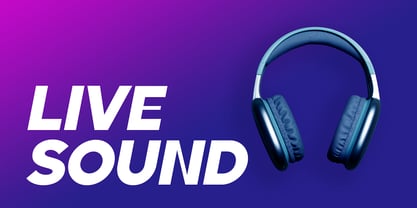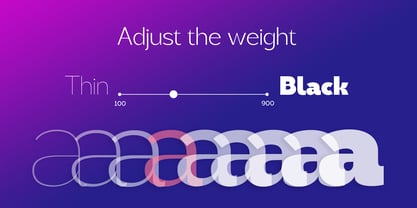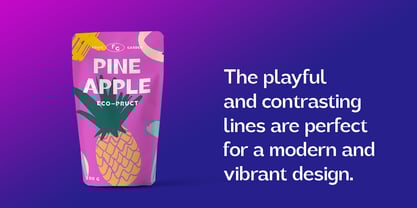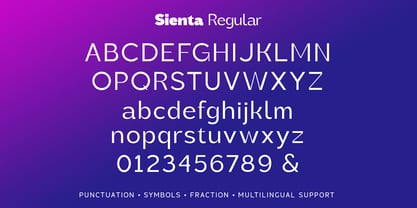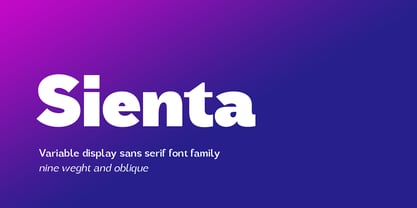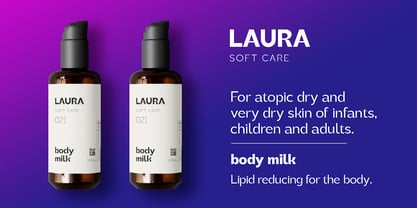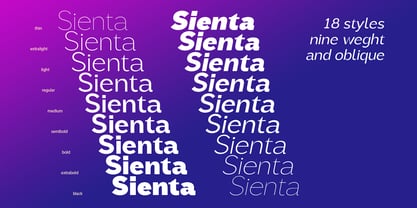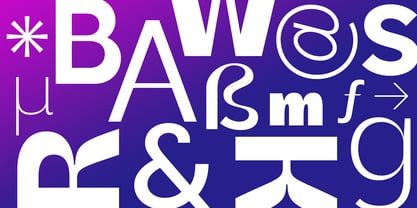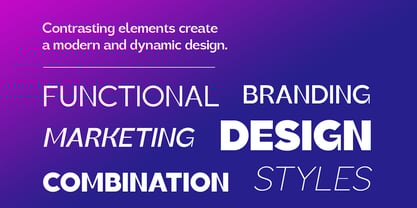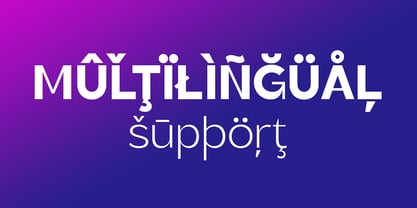
Sienta
by Larin Type Co
The Sienta Font Family was designed by Pavel Larin and published by Larin Type Co. Sienta contains 18 styles and family package options. More about this family
Sienta is a sans-serif display font family with a bright and defiant appearance due to its unusual contrast. It includes 9 weight and italics to them from thin to black. It is versatile and suitable for a wide range of applications. With it, you can create logos, labels, use in advertising, packaging, branding, book and magazine covers, cosmetics, banners, posters, headlines, descriptions and much more.
Designers: Pavel Larin
Foundry: Larin Type Co